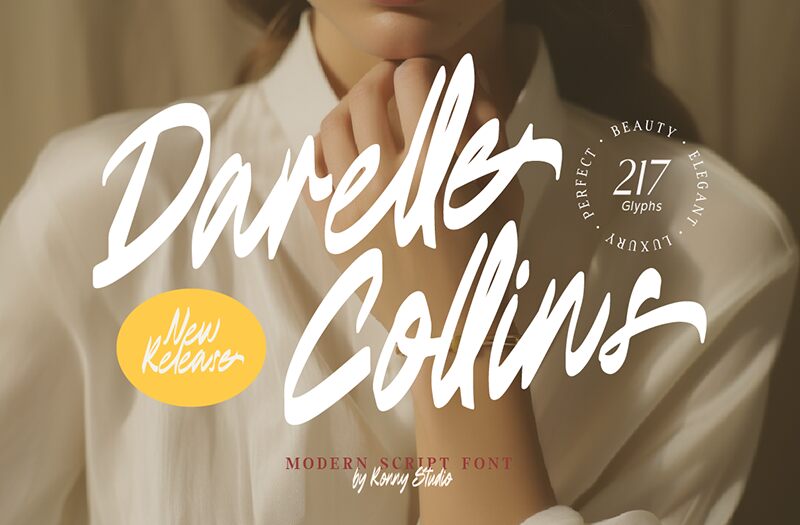
Darelle Collins, designed by Ronny Studio, exudes a captivating charm with its elegant handwritten style. The font stands out for its sleek and condensed appearance, creating a sense of intimacy and sophistication. Each stroke flows effortlessly, evoking a personal touch reminiscent of inviting letters or heartfelt messages.
Visually striking, Darelle Collins balances fluid curves with assertive lines, making it both playful and refined. Its aesthetic appeal lies in the ability to command attention while retaining an air of subtlety.
This font is ideal for creative projects requiring personality-such as wedding invitations, branding materials, or artisanal product labels-where a unique handwritten touch can elevate the overall design. Darelle Collins invites viewers in with warmth and character, making it an exquisite choice for numerous artistic applications.